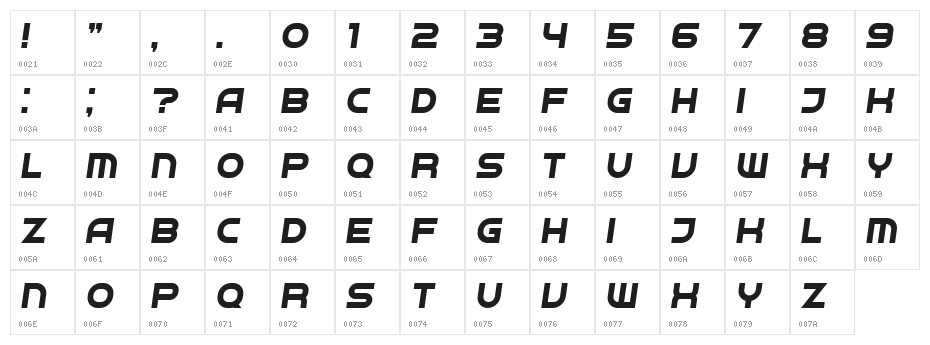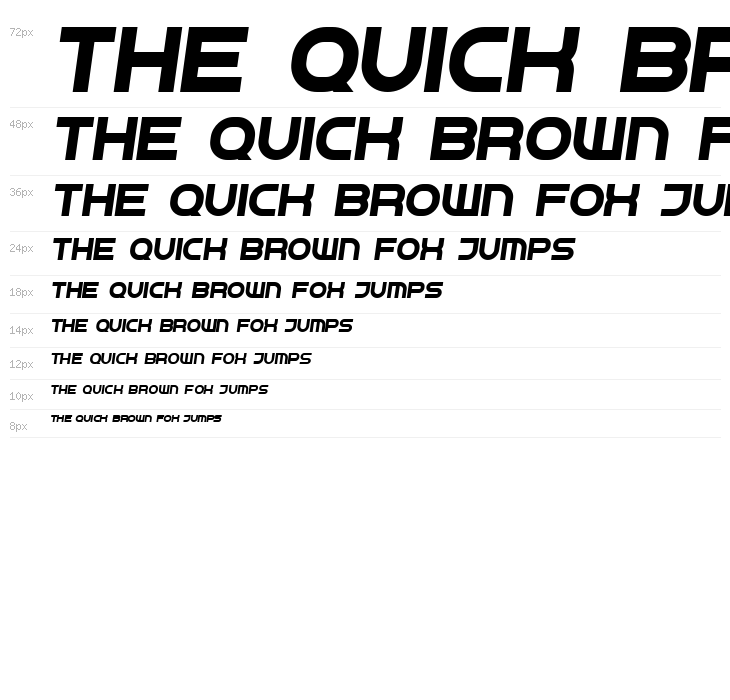
Neighbor Italic Font
Neighbor Italic Description
This font features a bold and dynamic style with a distinctly italicized slant, giving it a sense of motion and energy. The characters are wide and have a strong presence, making them ideal for attention-grabbing headlines or titles. The strokes are consistent in thickness, providing a uniform appearance across all characters. The design is modern and sleek, with a futuristic touch that makes it suitable for contemporary projects. The spacing between characters is tight, enhancing the compact and cohesive look of the text.
Proposed ProjectsIdeal for sports branding, dynamic posters, modern advertisements, and tech-related projects.